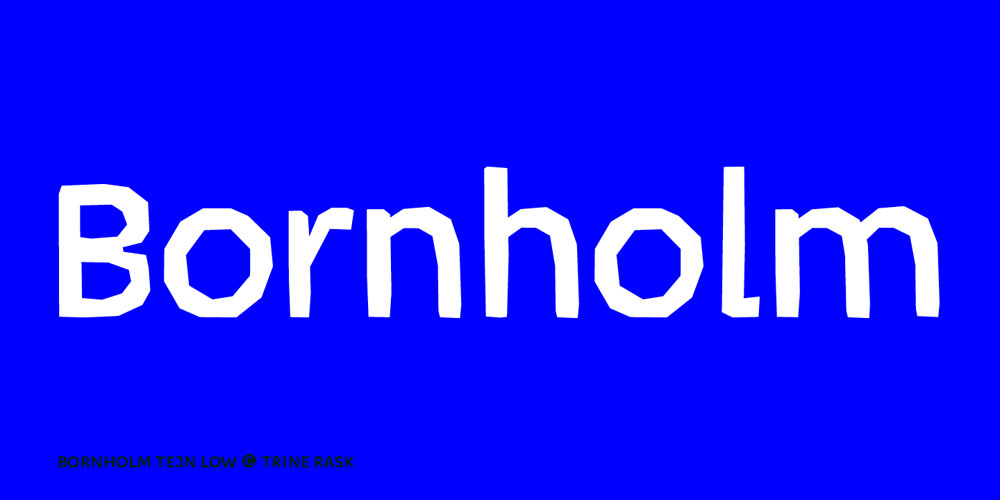
Bornholm Tejn Low Font Family was designed by Trine Rask and published by Trine Rask. Bornholm Tejn Low contains 2 styles and family package options. Bornholm Tejn is named after a village »Tejn« on the only rocky island in Denmark »Bornholm« Bornholm Tejn Low is the lowercase variant of Bornholm Tejn, released in 2012, the first face in a series of rough stone cut typefaces, that shares proportions, but differs in any other aspect like different pieces of rock. It is a powerful face, but still very friendly. Good for very big sizes, but can be used for small texts, movie titles, cartoons … Bornholm Tejn Low has a large x-height which supports the heavy and black look of the typeface. It contains tabular and proportional old style and lining figures.